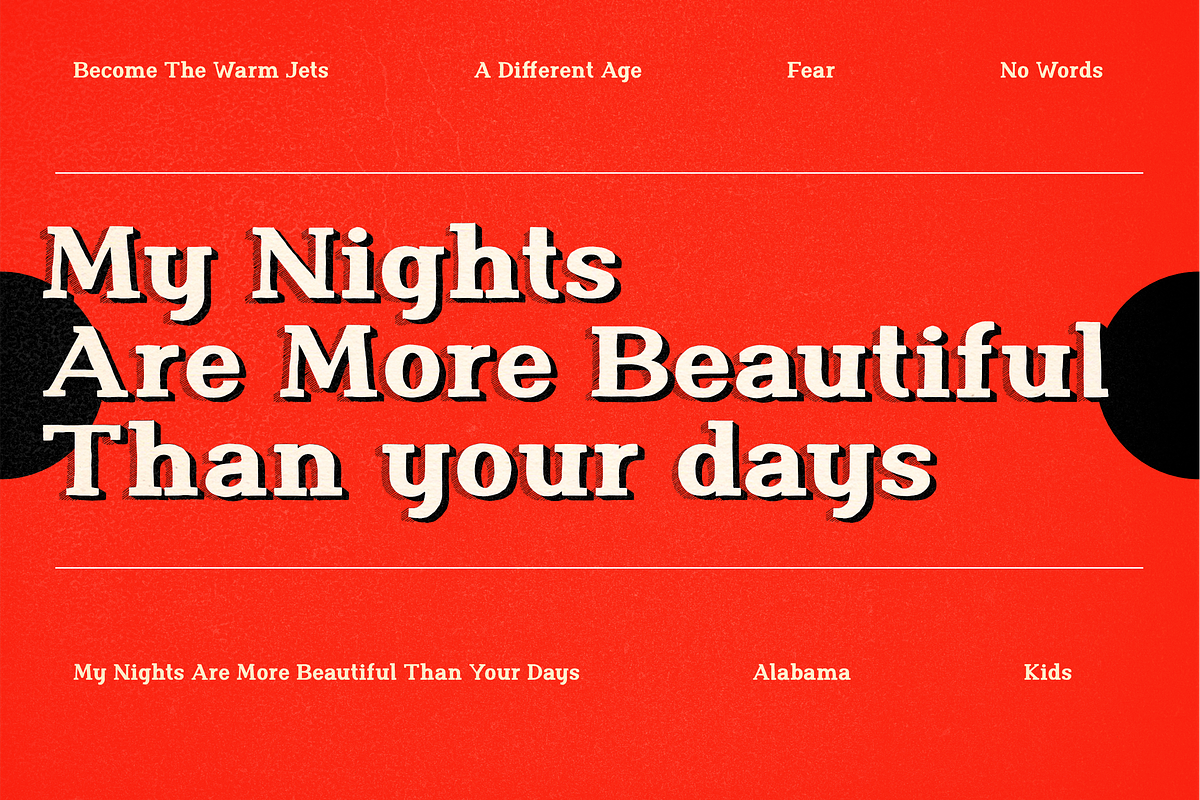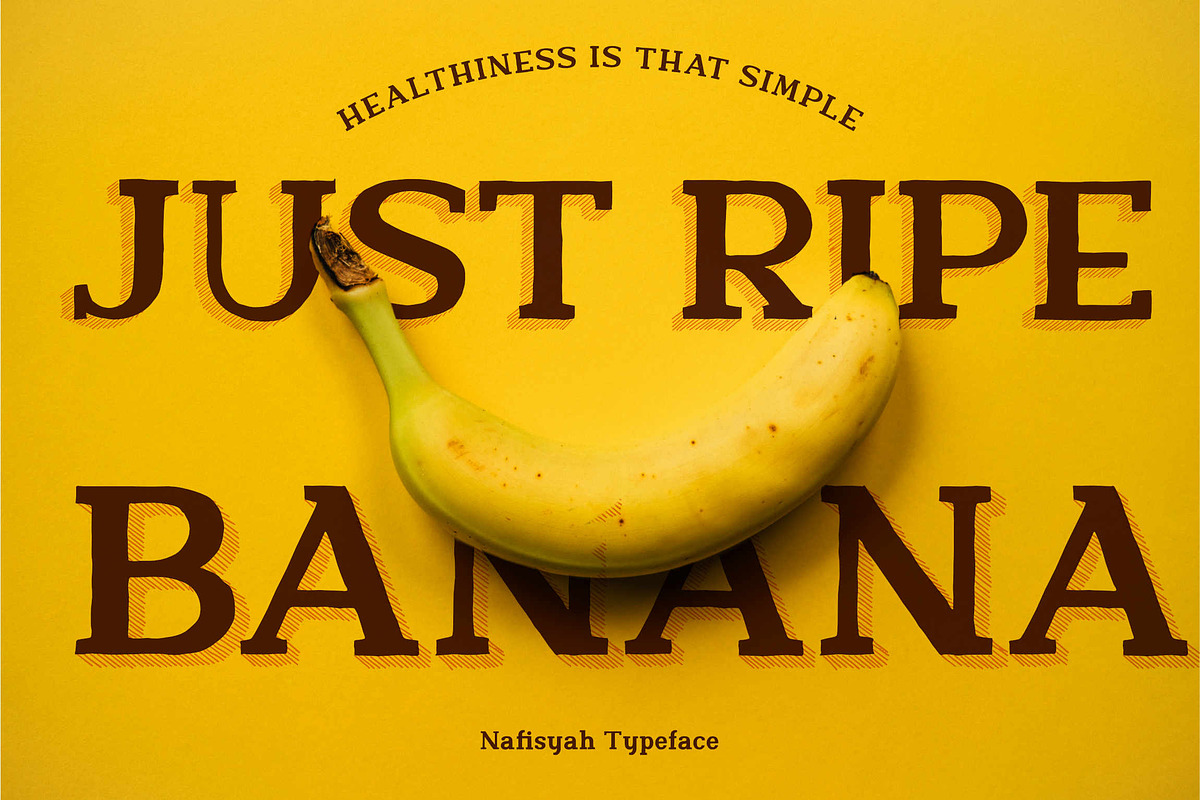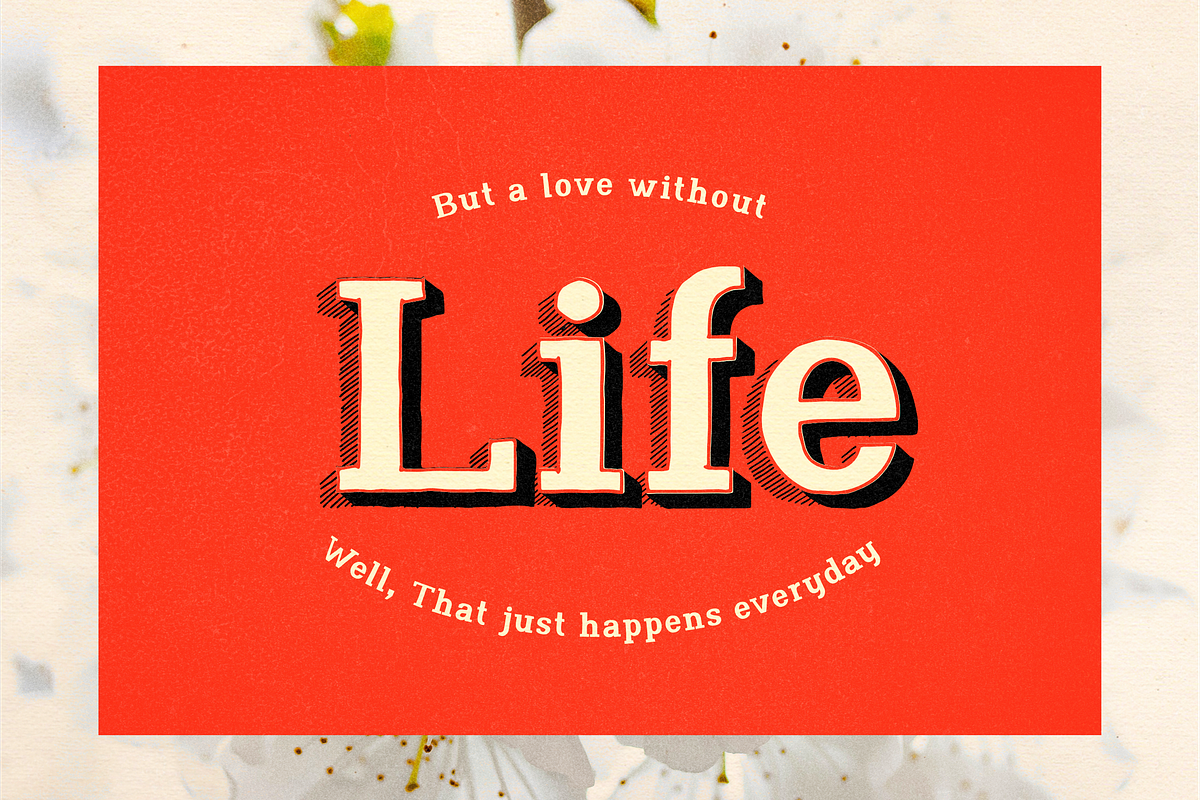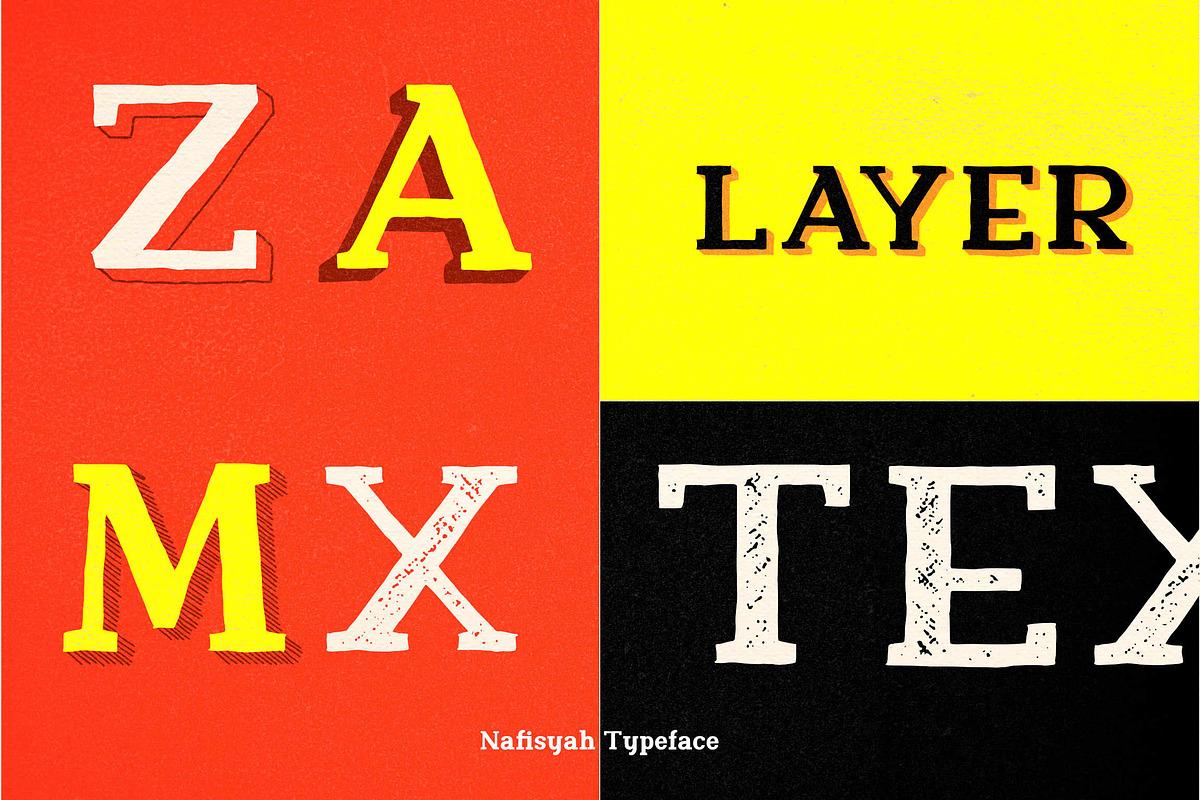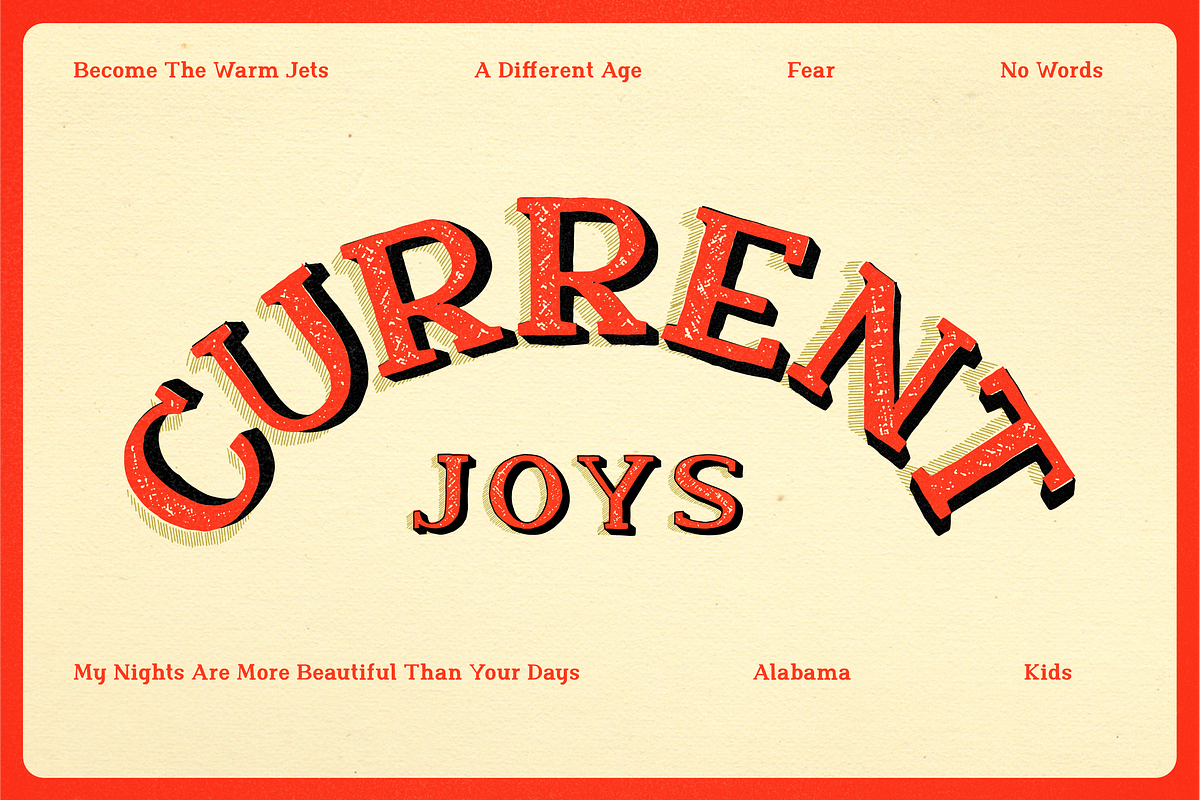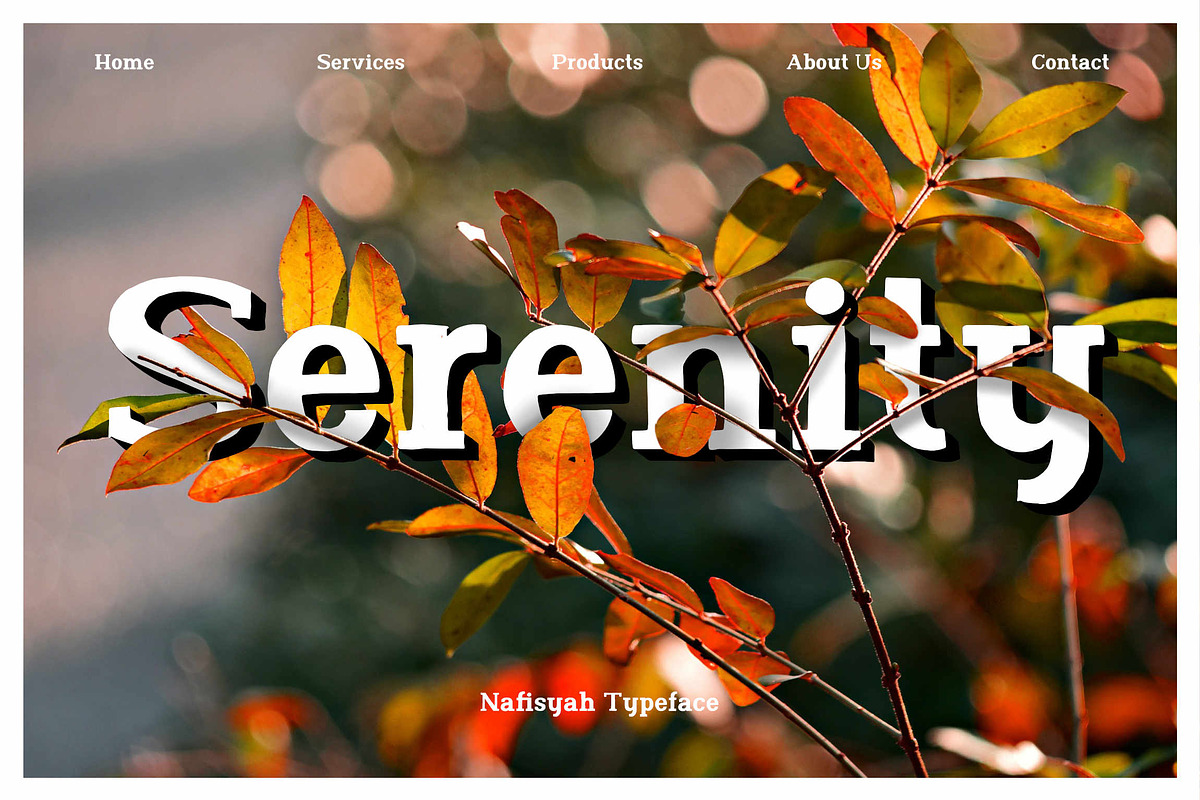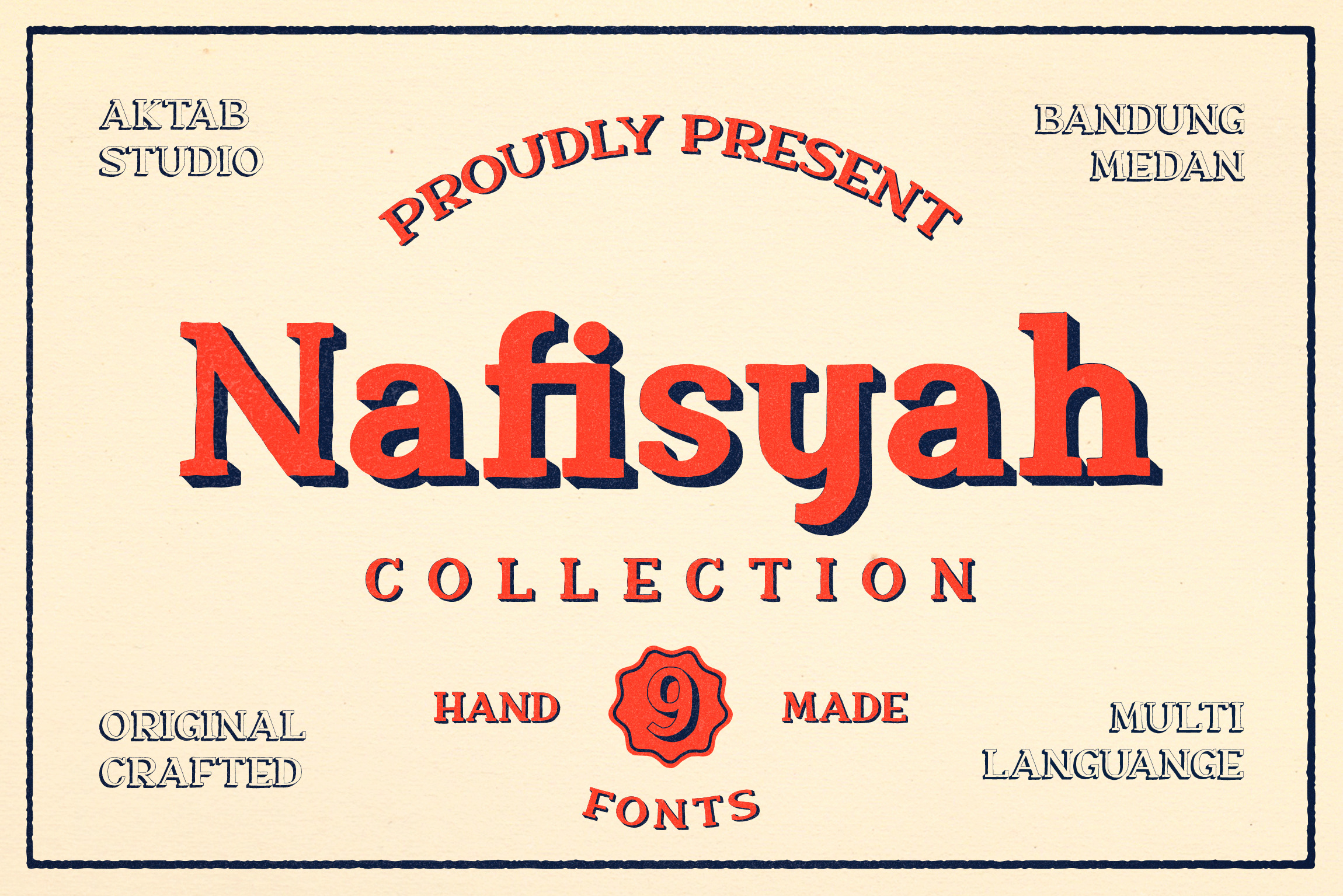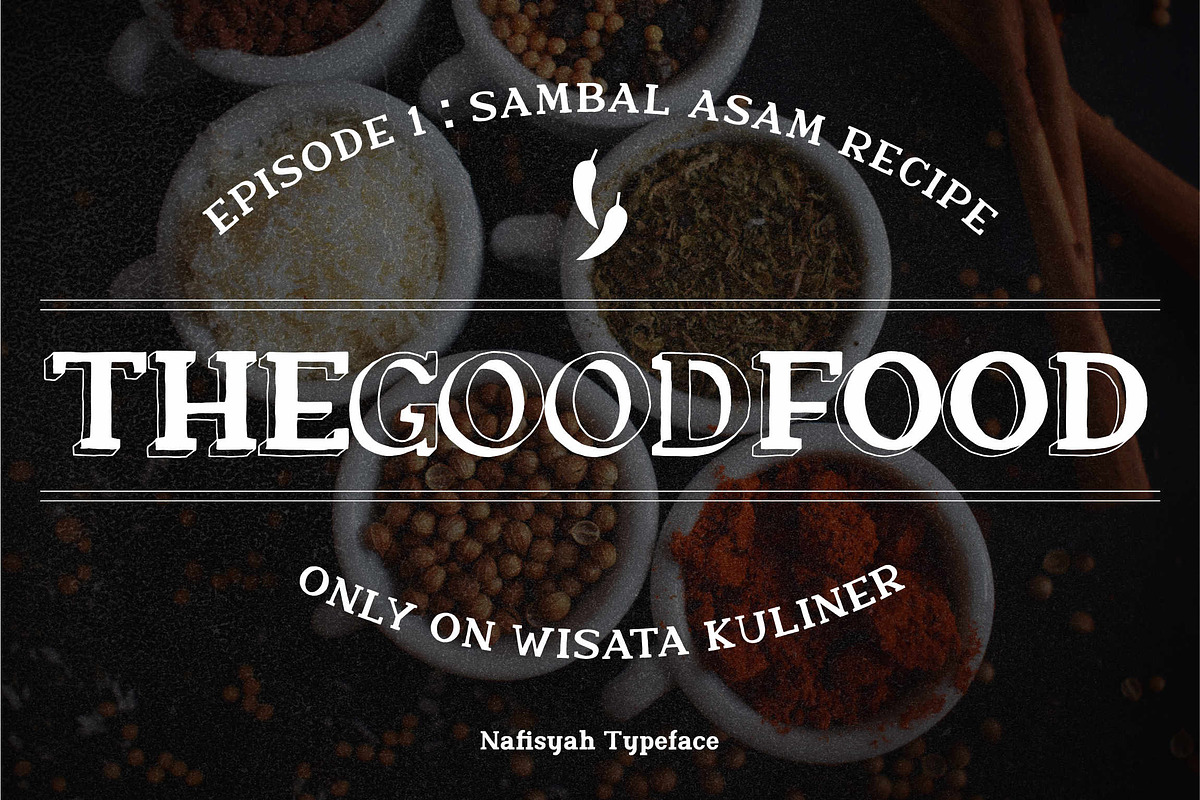
Nafisyah Slab - 9 Layered Font
Nafisyah Slab is inspired by Slab design concept typeface. It is perfect for vintage logo design, headlines or packaging design.
Nafisyah Slab comes with 9 Layered Font, original crafted with very carefull , with ordinal character. It has Multilingual support (Western European characters) and works with following languages: English, Danish, Dutch, Estonian, Faroese, Filipino, Finnish, French, German, Hungarian, Icelandic, Irish, Italian, Norwegian, Polish, Portuguese, Spanish, Swedish.